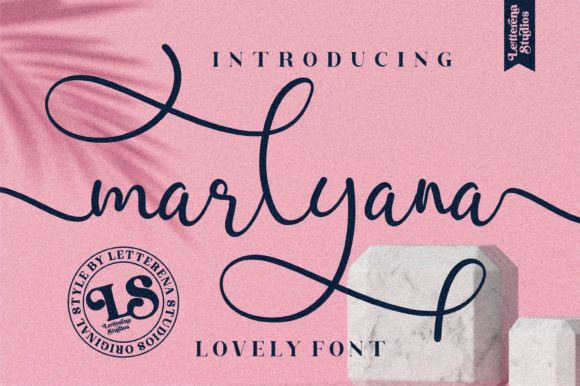
In a world of digital expression, Marlyana emerges as a symphony of elegance, creativity, and boundless possibilities. Crafted by the visionary artists at Letterena Studios, this enchanting script font ignites your imagination with its flowing curves, delicate strokes, and captivating charm. As you navigate through the digital landscape, Marlyana becomes your trusted companion, transforming mundane words into works of art, captivating your audience, and leaving a lasting impression that lingers in their minds.
Unleash the boundless potential of Marlyana and watch as your website blooms into a symphony of visual delight. Its carefully designed characters dance across the screen, captivating visitors with their graceful lines and elegant flourishes. Let Marlyana weave its magic, enchanting your audience with every click and scroll. Elevate your online presence to new heights, leaving a lasting legacy of sophistication and class.
With its PUA encoding, Marlyana unlocks a treasure trove of creative possibilities. Effortlessly access an array of glyphs and swashes, adding an extra layer of charm and individuality to your designs. Embark on a journey of creativity, where every project becomes a canvas for your artistic expression. Let Marlyana be your muse, guiding you towards designs that resonate with your audience and leave them breathless.
Marlyana is not merely a font; it is a gateway to a world of creativity, a catalyst for innovation, and a testament to the transformative power of design. As you immerse yourself in its graceful curves and enchanting strokes, you'll discover a font that empowers you to create designs that captivate, inspire, and leave an indelible mark on the hearts of those who behold them.